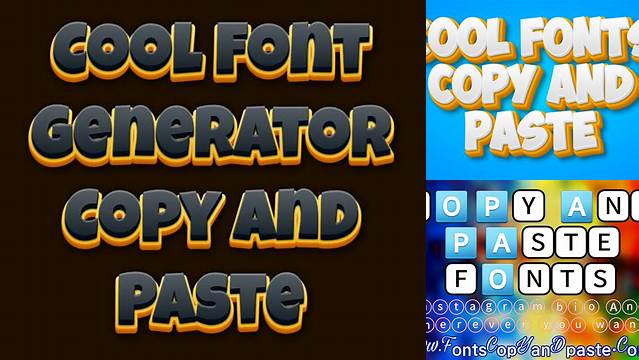
Cool Fonts: Copy & Paste Guide For Stylish Text
Hey guys! Ever wanted to add a little pizzazz to your social media posts, presentations, or even just your everyday documents? One of the easiest ways to do that is by using cool fonts! And guess what? You don't even need to be a design whiz to make it happen. With the magic of "copy and paste," you can transform your plain text into something truly eye-catching. This guide will walk you through the wonderful world of cool fonts, how to find them, and, most importantly, how to copy and paste them into your favorite platforms.
What are Cool Fonts and Why Use Them?
Cool fonts are essentially stylized versions of the standard fonts you see every day. Think beyond your Times New Roman and Arial! These fonts come in all shapes and sizes, from elegant scripts and playful bubble letters to futuristic designs and vintage classics. Using cool fonts can instantly elevate your text, adding personality and visual interest. Imagine jazzing up your Instagram bio with a fancy cursive, creating a striking heading for your blog post with a bold display font, or adding a touch of whimsy to a birthday card with a fun, handwritten style.
But it's not just about aesthetics. Using unique and cool fonts can also help you stand out from the crowd. In a world saturated with content, grabbing attention is key. A well-chosen font can be the difference between someone scrolling past your post or stopping to take a look. For businesses, using a distinctive font can even contribute to brand recognition. Think about the iconic Coca-Cola script or the bold, clean font of Google – these fonts are instantly recognizable and help to solidify brand identity. Moreover, selecting the right font can set the tone and convey the message effectively. A formal invitation might call for a sophisticated serif font, while a children's book would benefit from a playful, approachable typeface. The possibilities are endless, and the impact can be significant.
Where to Find Cool Fonts for Copy and Paste
Now, you might be wondering, "Okay, this sounds great, but where do I actually find these cool fonts?" Don't worry, the internet is brimming with resources! There are numerous online font generators and websites that offer a wide variety of stylish fonts that you can easily copy and paste. Let's explore some of the most popular options:
Online Font Generators
Online font generators are your best friend when it comes to cool fonts copy and paste. These tools allow you to type in your desired text, and then they instantly generate the same text in a variety of different fonts. The best part? You can simply copy and paste the generated text into your document, social media post, or anywhere else you need it.
Some popular online font generators include LingoJam, FontGet, Cool Fancy Text Generator, and many more. These websites typically have a user-friendly interface. You just type in your text, scroll through the options, and click the "copy" button next to the font you like. It's that easy!
The advantage of using these generators is the sheer variety of fonts available. You can find everything from elegant cursive fonts and bold display fonts to quirky symbols and even fonts that mimic handwriting. This makes it easy to find the perfect font for any occasion. Furthermore, many of these generators offer additional customization options, such as adjusting the size, color, and style of the font. This allows you to fine-tune your text to perfectly match your vision. Online font generators are a fantastic resource for anyone looking to add a touch of personality to their text without having to install any special software or fonts on their computer.
Websites with Pre-Made Font Collections
Beyond font generators, there are also websites that curate collections of cool fonts specifically designed for copy and paste. These sites often categorize fonts by style, such as calligraphy, gothic, or bubble letters, making it easier to find what you're looking for. Some popular websites in this category include Fontspace, DaFont, and Creative Market (though some fonts on Creative Market may require purchase). These platforms are a treasure trove of typographic inspiration, offering a vast array of options to suit any taste and project.
Browsing through these font collections can be a rewarding experience in itself. You might stumble upon hidden gems and discover new styles that you never knew existed. Many of these websites also offer previews of how the font will look in different contexts, allowing you to get a better sense of its suitability for your specific needs. This is particularly helpful when choosing a font for a logo or branding material, where visual consistency is paramount.
Another advantage of using these websites is that they often provide information about the font's license, indicating whether it's free for personal use, commercial use, or both. This is crucial to ensure that you're using the fonts legally and ethically. Taking the time to understand the licensing terms can save you from potential legal issues down the road. So, explore these websites, dive into the font collections, and discover the perfect typeface to elevate your next project.
How to Copy and Paste Cool Fonts
Okay, you've found the cool fonts of your dreams, now what? The beauty of these fonts is that they are incredibly easy to use. The process is as simple as copying and pasting text, just like you would with regular text. Here’s a step-by-step guide:
- Find Your Font: Head over to an online font generator or a website with font collections (as mentioned above).
Cool fonts copy and paste is a simple yet powerful way to transform your text and add a touch of personality to your content. With the abundance of online resources available, finding and using stylish fonts has never been easier. So go ahead, experiment with different fonts, and discover how they can help you make a statement! Just remember to prioritize readability, consider your audience, and use them judiciously. Happy font-ing, guys!